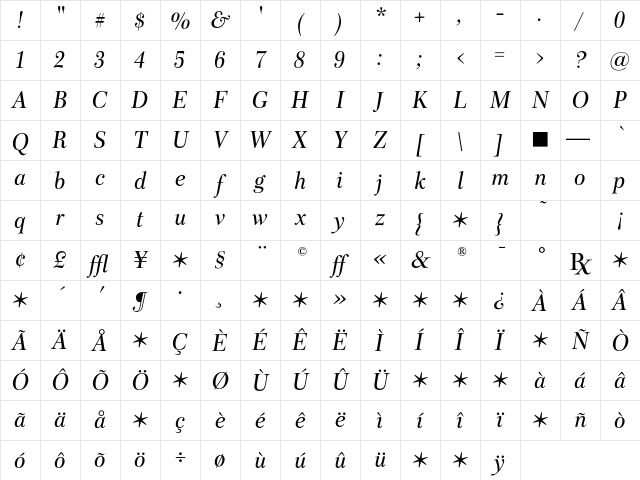
Scotch DisplayItalic
Style: DisplayItalic
Design Context for Scotch
Scotch is built around its visual character rather than neutral utility - its distinctive forms are designed to make an impression at display sizes. The slanted form adds forward momentum and visual energy.
Font Pairing: Pair with a clean neutral sans-serif for body copy to let Scotch's character lead without overwhelming the composition.
Pro Tip: Use Scotch exclusively at display sizes - it was designed to be seen, not read at length. Let a neutral companion handle body copy.